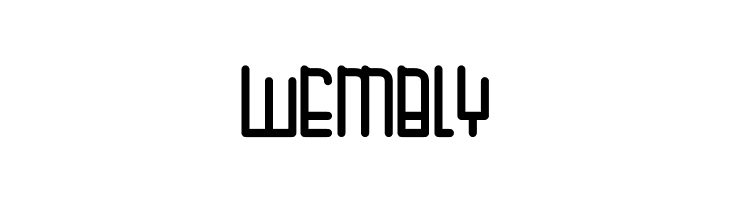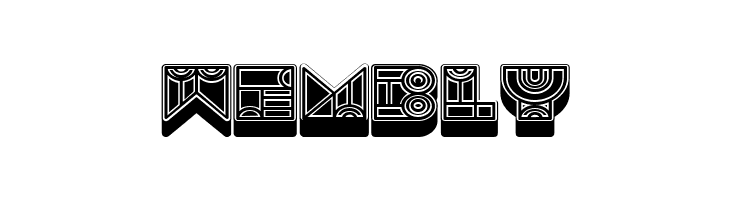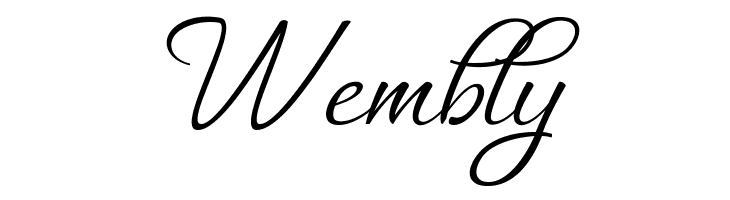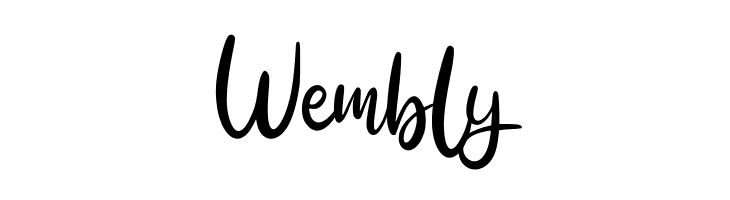
mulidey Font
A playful and elegant handwritten script font with smooth curves and a whimsical style.
Mulla Font
Font by
yuliusparyadi
An elegant, whimsical font with flowing, cursive-like strokes and playful loops.
Mulled Wine Season Medium Font
Font by Roland Huse Design
A playful, rounded font with bold, smooth curves and a casual vibe.
Müller Font
americasuena.cl
A bold, hand-painted style font with dynamic, irregular strokes.
Muller ExtraBold DEMO Font
Muller Thin DEMO Font
A modern, thin sans-serif font with a clean and minimalist design.
MullerExtraBoldDEMO Font
A bold, modern sans-serif font with geometric lines and strong visual impact.
MullerThinDEMO Font
A modern, thin sans-serif font with clean lines and a minimalist design.
Mullet Font
Font by www.fontalicious.com
A bold, geometric font with a playful and dynamic style.
Mullingar Font
A bold, serif font with strong strokes and sharp serifs, ideal for impactful designs.
Mullingar Font
A bold serif typeface with high contrast and elegant curves.
Mullion Font
A classic serif font with bold strokes and elegant curves, ideal for formal use.
Mullion Font
A classic serif font with bold strokes and elegant curves.
Multi Regular Font
A bold, geometric font with art deco influences, featuring thick vertical lines.
MultiCapsOne Font
A bold, three-dimensional font with layered, geometric designs.
MultiCapsTwo Font
A bold, geometric font with a three-dimensional effect and modern style.
Multicasion Font
Font by Graham Meade - GemFonts
Decorative dingbat font with occasion-themed illustrations.
MulticolorAgilitys Font
A playful and casual handwritten font with fluid, organic letterforms and heart-shaped embellishments.
Multicolore Font
Font by www.Fontfabric.com